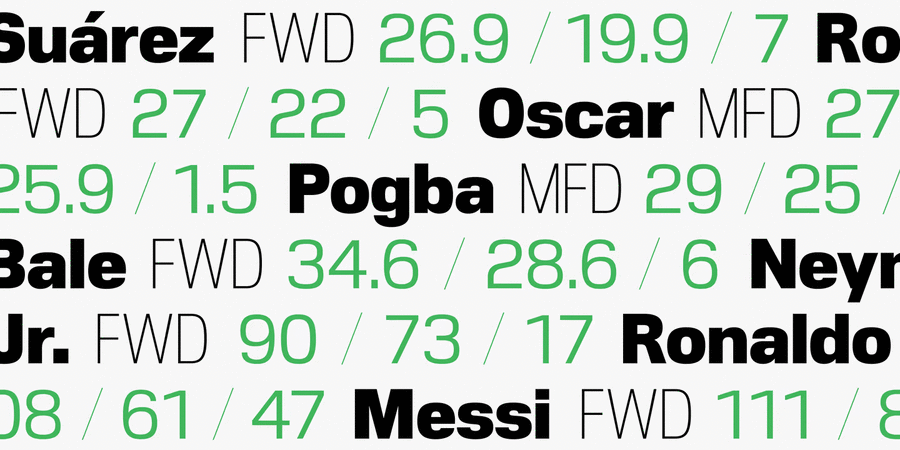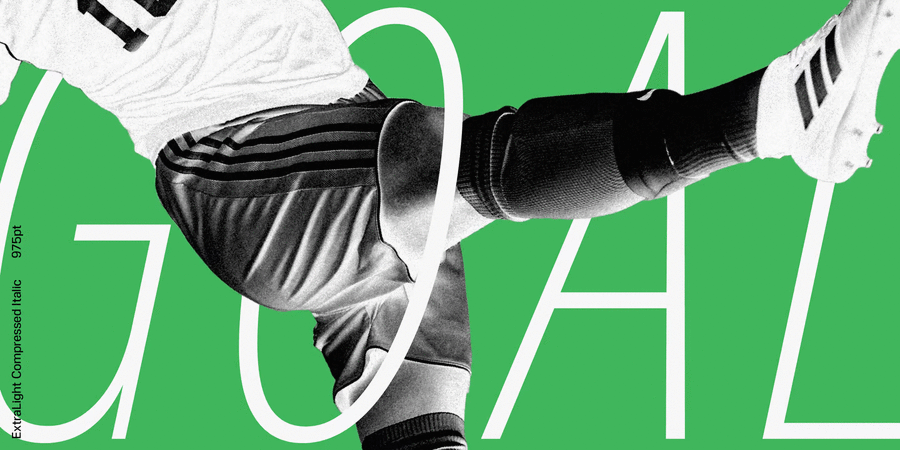
About Nuber Next is a modern geometric sans influenced by the popular neo-grotesques of the 1950s including Helvetica and Univers. Carefully remastered from the original Nuber font family to improve letter shape, overall uniformity and introduce a flexible width system capable of handling a wider variety of typographic applications. Details include 750 characters per font, nine weights and five widths with matching italics, 90 fonts total. Opentype features include seven variations of numerals, fractions, case-sensitive forms, stylistic alternates, ligatures, extended monetary symbols and language support covering Cyrillic, Western, South and Central Europe. Designed by Jonathan Hill in 2018-2020. Nuber Next™ is a trademark of The Northern Block.
delicate, clean, easy, thin, chilly, modern, flat, high-quality, weightless, transparent, urban, crisp, intimate, fragile, air, glass, wire, static, slim, tall, fresh, economical, clear, business, cosmopolitan, unobtrusive, technically, straight, globalized, globalistic, monotone, pragmatic, practical, solid, inexpressive, accurate, serious, dense, convincing, reputable, strong, important, urgent, fast, persistent, resolute, sportive, minimalistic, laconic, calm, strict, clever, heavy, formidable, stable, fashionable, dynamic, cutting, logical, pleasant, available, comfortable, simple, standard, self-assured, motivating, powerful, notable, bright, active, splashy, ambitious, significant, robust, manly, durable, severe, good quality, monumental, technical, loud, daring, brutal, reliable, industrial, technogenic, urbanistic, authoritative, tough, railway, independent, responsible, west, mandatory, sharp, lasting, racing, high-speed, engineering, schematic, vigorous, cinematic, close-fitting, cocky
diet, hygiene, design, city, purity, skyscraper, cinema, Cigarettes, business, retail, store, advertising, computer game, football, flag, sport, medicine, building materials, Freight, tool, truck, trucker, logistics, Eau de Toilette, innovations, barbershop, perfumery, lotion, shampoo, society, transport, airport, Metro, medicines, coworking, science, chemistry, physics, water, bus, pharmacy, news, policy, car, Delivery, equipment, building, repairs, mechanical engineering, factory, industry, machine tool, fitness equipment, safe, excavator, metallurgy, port, engine, urban studies, power station, energy industry, motor, press, railway carriage, railway, fuel, cars, formula 1, wheelbarrow, aviation, aircraft, helmet, fashion, device, clothes, sky, footwear, engineer, police, race, rally, game, speed Typeface associated with age: